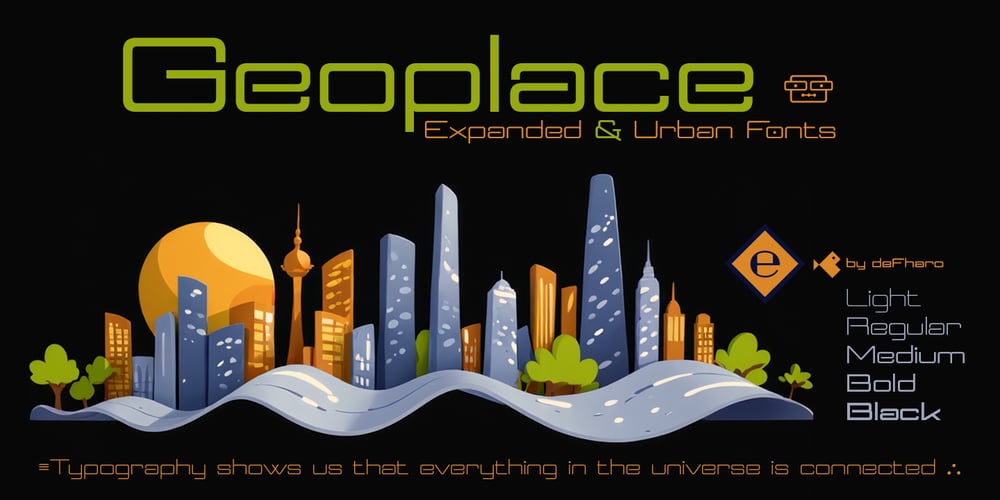
Geoplace
Geoplace font
Geoplace Font Family was designed by Fernando Haro and published by deFharo. Geoplace contains 5 styles and family package options. Geoplace, an expanded proportion sans serif typeface family, imbued with futuristic urban style and technological inspiration, reflecting my passion for design and geometric precision to achieve unique aesthetics and exceptional legibility.Geoplace is the result of my dedication and commitment to typography design, my goal is to create letters and characters that are perfectly legible and aesthetically pleasing and that always convey the desired intention for the text. I hope you enjoy exploring its possibilities as much as I enjoyed creating it.Functional and aesthetic versatilityGeoplace is not only aesthetically appealing, but also functional and highly versatile, with five different thicknesses from thin and elegant to robust and punchy, a variety of advanced OpenType features and alternative sets of letters and numbers, as well as a wide range of symbols .This font family offers a complete tool for any creative project, with a total of 851 glyphs, Geoplace gives creatives unlimited freedom to express their vision in any context. Geoplace has a complete character set (Latin Extended-A), functional for any European language derived from Latin, making it ideal for multilingual projects.